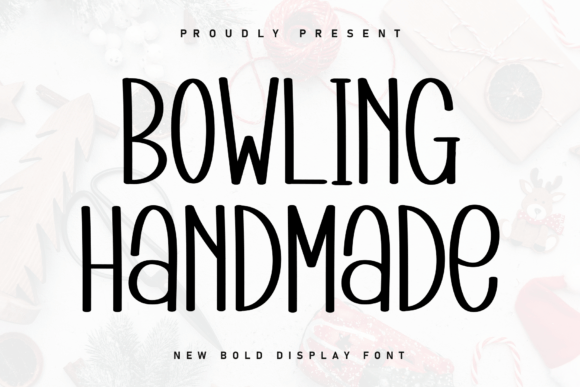
The Perfect Strike: Discovering the Charm of Bowling Handmade Font
I’ll never forget the time I was working on a branding project for a trendy bowling alley. My client wanted a logo that exuded a fun, sporty vibe, but also had a touch of elegance. As I scrolled through font after font, nothing seemed quite right. That was until I stumbled upon Bowling Handmade Font. It was like the perfect strike – everything clicked into place.
A First Impression: What Makes Bowling Handmade Font Special
Bowling Handmade is a handwritten font that looks like it was drawn with a marker. Its relaxed and sporty feel makes it incredibly versatile for various design projects, from branding and logos to wedding supplies, greeting cards, fashion lookbooks, and marketing promotions. This font is perfect for designers, crafters, and creative hobbyists who want to add a touch of luxury and elegance to their work without sacrificing a casual feel.
• ✨ Unique, hand-drawn aesthetic that adds a personal touch to any design
• ✅ Highly versatile and adaptable to various design projects
• ✅ Easy to read and understand, even in smaller font sizes
• ✅ Supports OpenType features, glyphs, and stylistic alternates for added creativity
• ⚠️ Some characters may appear a bit inconsistent in size or spacing, which can be adjusted with kerning
• 🤔 Limited availability of language support, mainly suited for English and similar alphabets
The Story Behind Bowling Handmade Font
The creator of Bowling Handmade Font was inspired by the casual, sporty atmosphere of bowling alleys and the elegance of handmade typography. They aimed to craft a font that would capture the essence of both worlds – a unique blend of playfulness and sophistication.
Q: What type of designs is Bowling Handmade Font best suited for?
A: Bowling Handmade Font is versatile and can be used for various design projects, such as branding, logos, wedding supplies, greeting cards, fashion lookbooks, and marketing promotions.
Q: Does Bowling Handmade Font support OpenType features and glyphs?
A: Yes, Bowling Handmade Font supports OpenType features and glyphs, allowing for added creativity and customization in your designs.